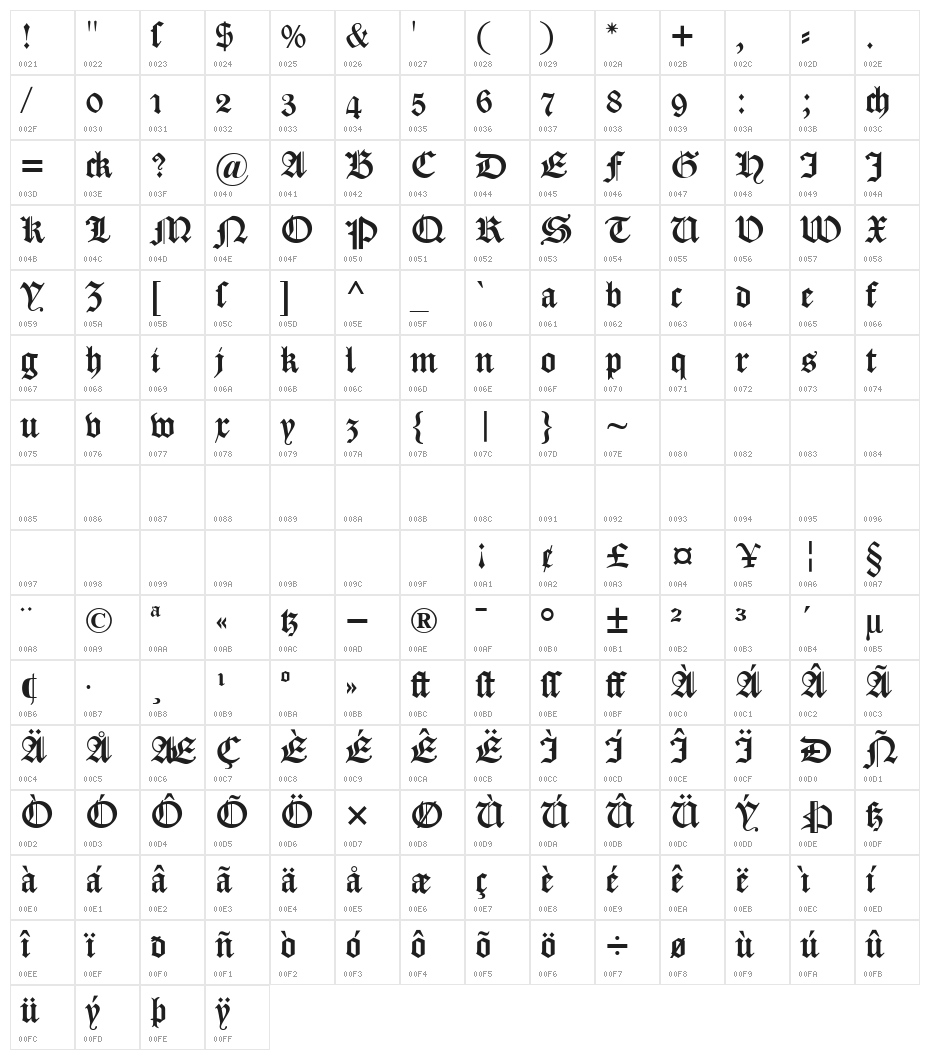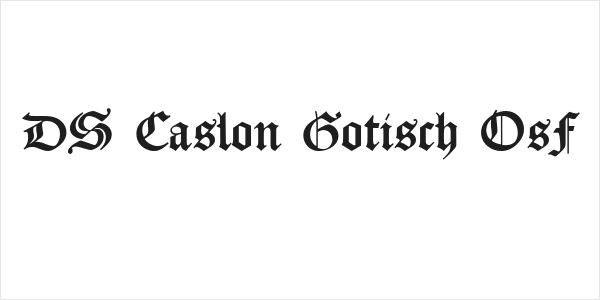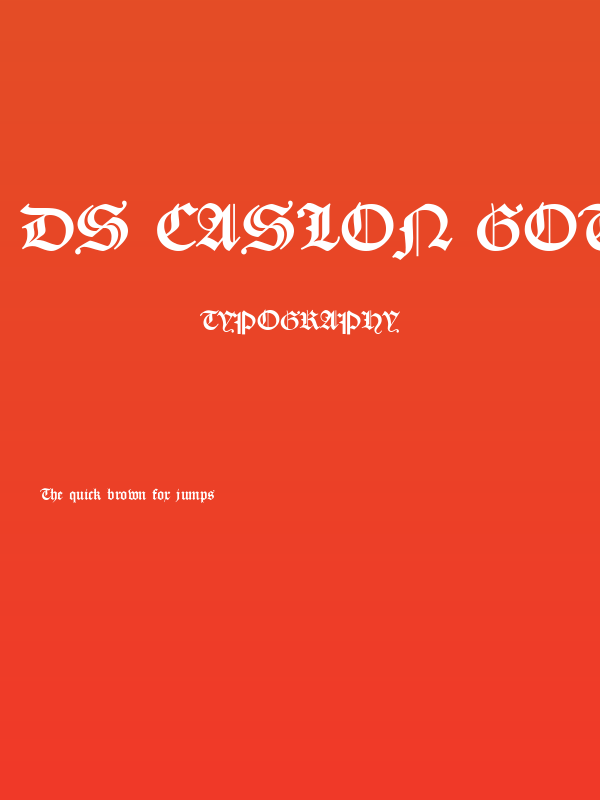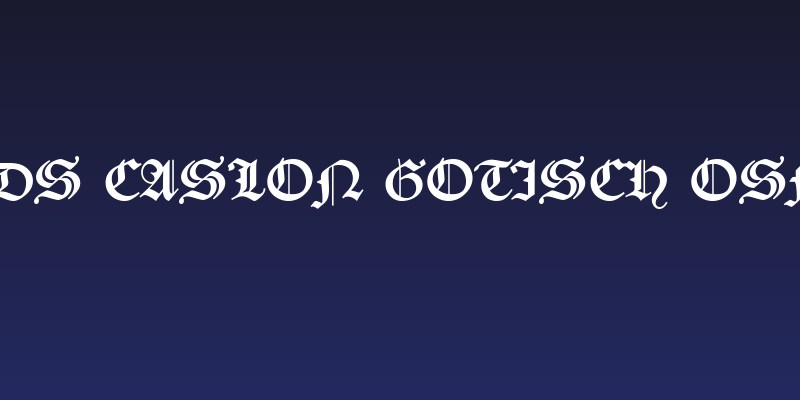
DS Caslon Gotisch OsF Font
DS Caslon Gotisch OsF Description
This font embodies a traditional blackletter style, characterized by its intricate and ornate letterforms. The uppercase letters feature sharp, angular lines with decorative flourishes, while the lowercase letters maintain a consistent style with slightly more rounded edges. The numbers and special characters are designed to match the overall aesthetic, providing a cohesive look. The font exudes a historical and gothic feel, making it suitable for projects that require a touch of medieval or vintage charm.
| Proposed Projects | Ideal for historical documents, vintage posters, book covers, and branding that requires a gothic or medieval touch. |